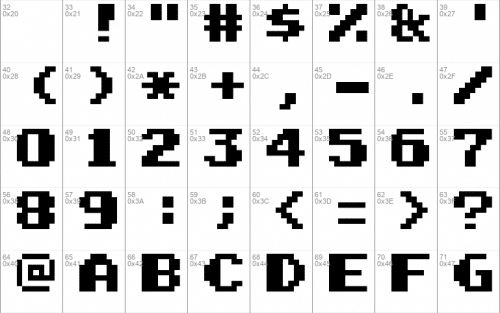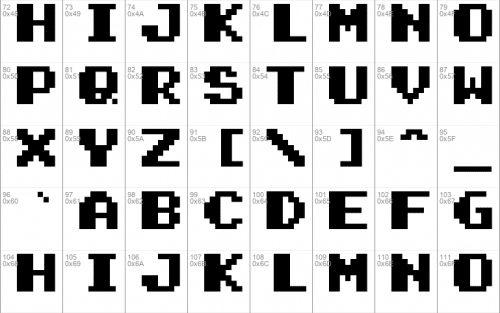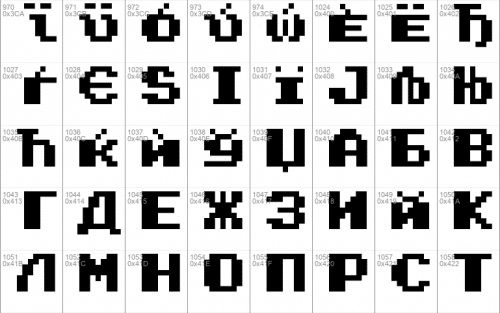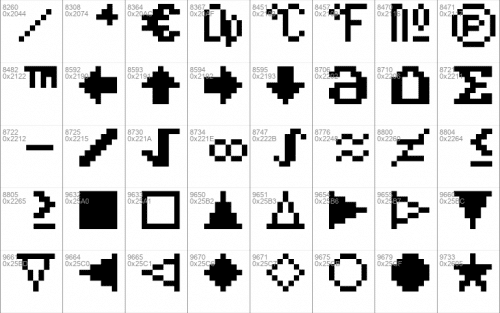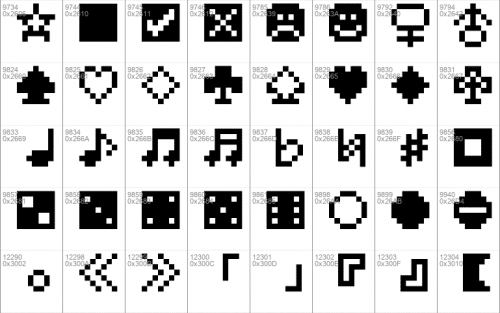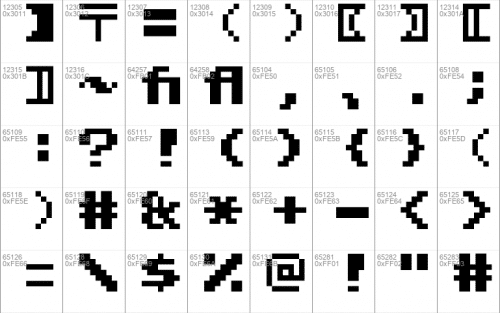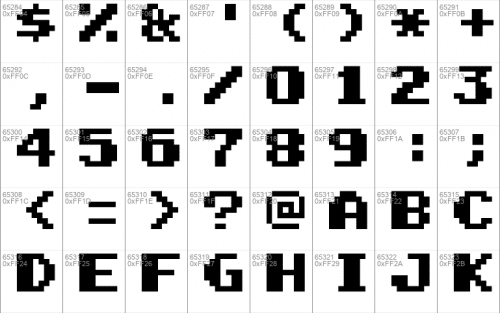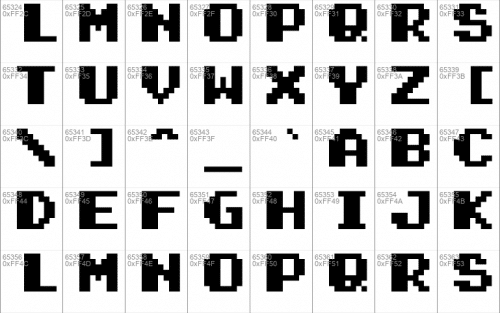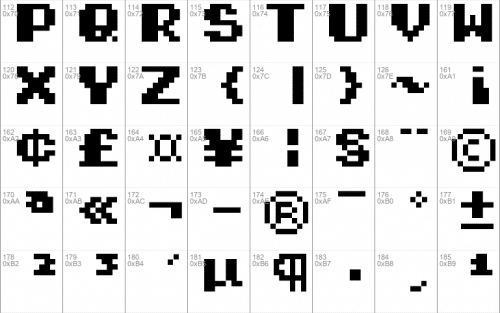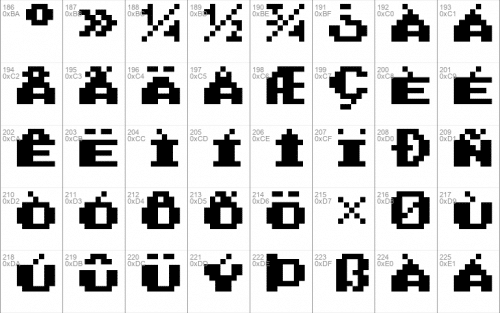
It’s no dream! Super Mario Bros. 2 Font is a font based on Super Mario Bros. 2 for the NES (The USA version) is finally here! And there’s also unicodes, along with characters for Latin, Greek, and Cyrillic!